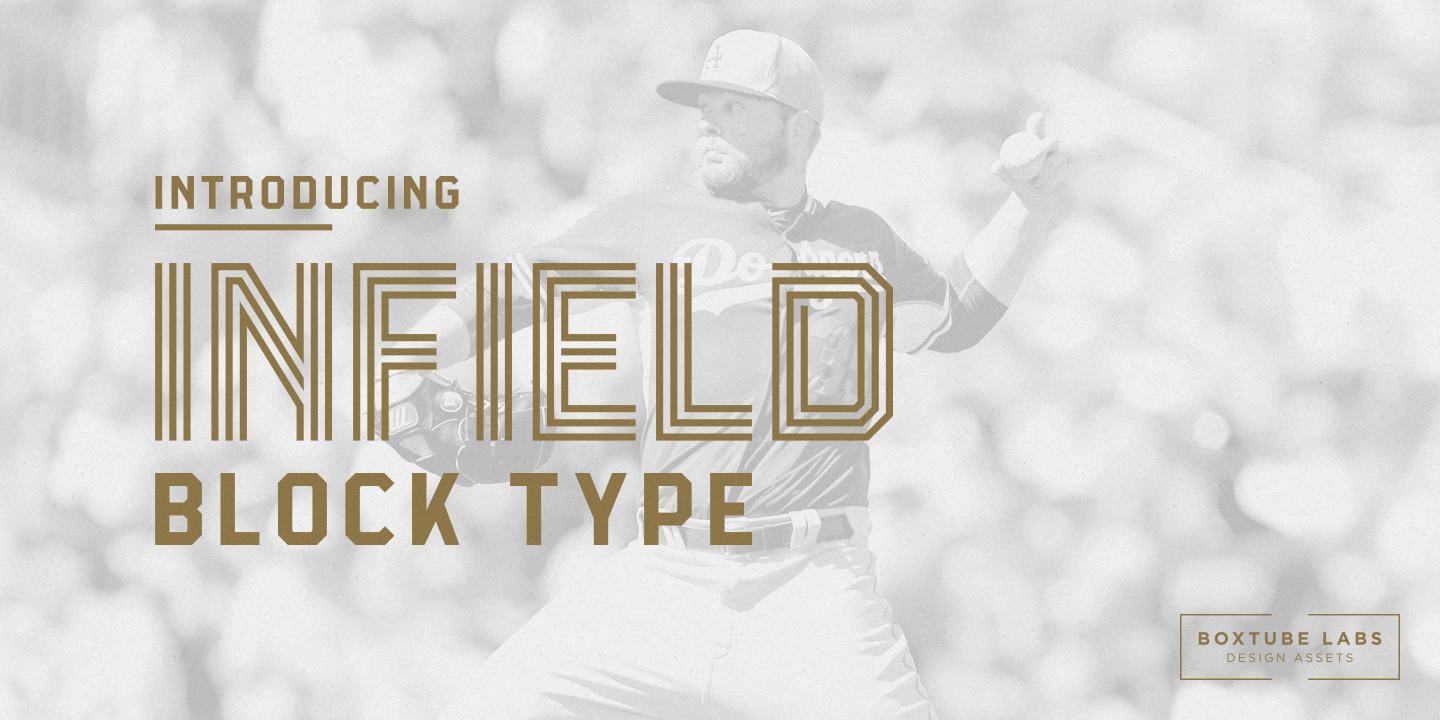
Infield Font is perfect for sports team branding, baseball merchandise, athletic equipment design, stadium signage, sports broadcasting graphics, team uniforms, competitive league materials, sports bar identity, recreational facility signage, and athletic applications that capture the authentic spirit and competitive energy of America's favorite pastime.
What makes Infield Font truly exciting is its authentic embodiment of baseball tradition and competitive athleticism that brings the excitement of the diamond directly to any design project. This exceptional typeface captures the essence of America's pastime with its strong, athletic letterforms and field-tested character that convey both sporting heritage and competitive determination. The font's athletic authenticity and team-spirited personality make it perfect for brands and projects that need to communicate sportsmanship, tradition, and the thrilling energy of competitive baseball at every level.
The Infield Font family includes multiple weights and styles: Regular, Bold, Condensed, Extended, and Distressed variations designed for maximum athletic impact. Each family member maintains the distinctive baseball character while offering flexibility for diverse sports applications and athletic branding systems. The comprehensive character set supports sports typography needs and athletic design elements, making it suitable for international baseball communications.
When you choose Infield Font Free Download, you're selecting a typography home run that delivers championship-level performance and authentic sporting character. This athletic typeface excels in applications where sports tradition and competitive spirit are essential messaging elements, delivering exceptional visual power while maintaining field-tested readability. Whether you're designing team brands, sports merchandise, athletic facilities, or competitive campaigns, this font provides the baseball authenticity and sporting excellence that resonates with fans and athletes who appreciate genuine team spirit, athletic tradition, and the timeless appeal of America's beloved game.